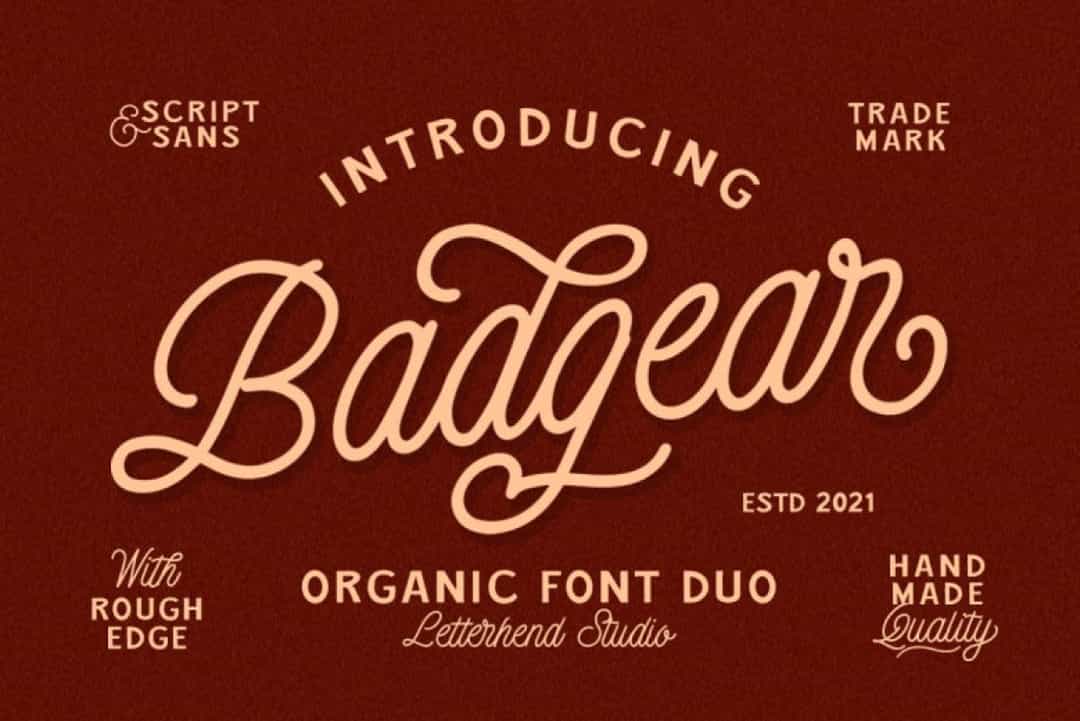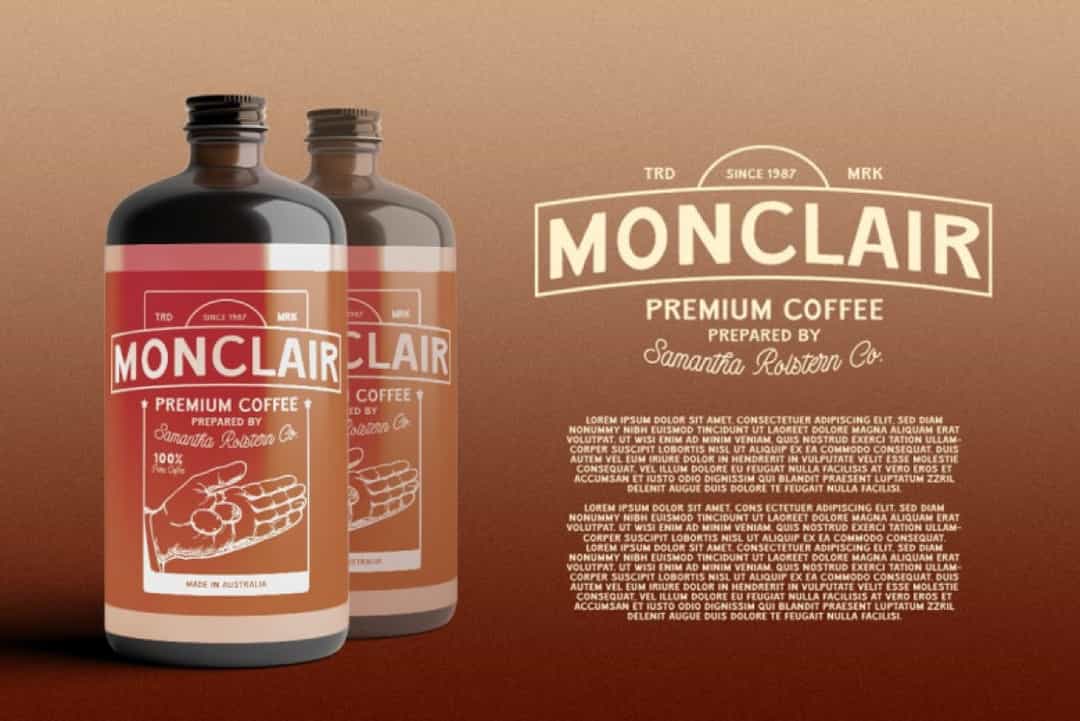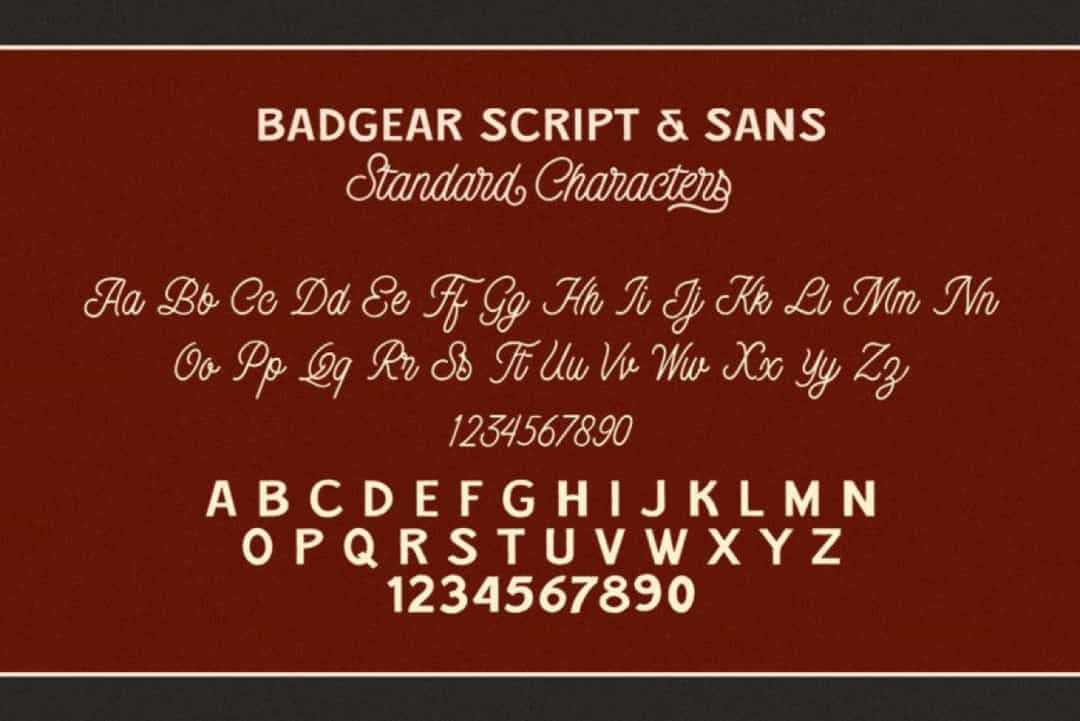
Badgear is an exquisite vintage-styled duo font composed of sans serifs and scripts, designed for editorial or fashion designs. Its signature curves make this typeface ideal for editorial layouts or fashion collections – be sure to incorporate this font into your designs for a truly breathtaking result!